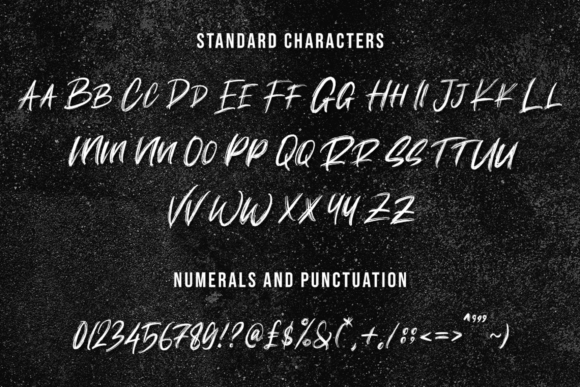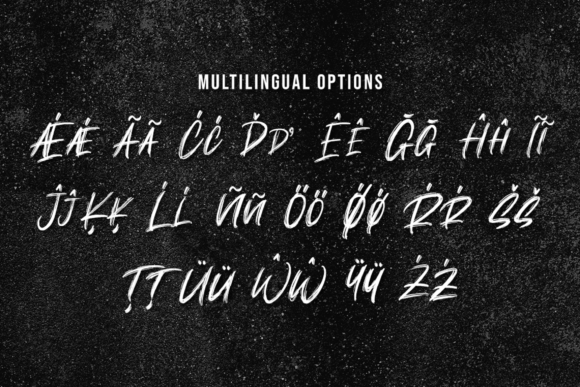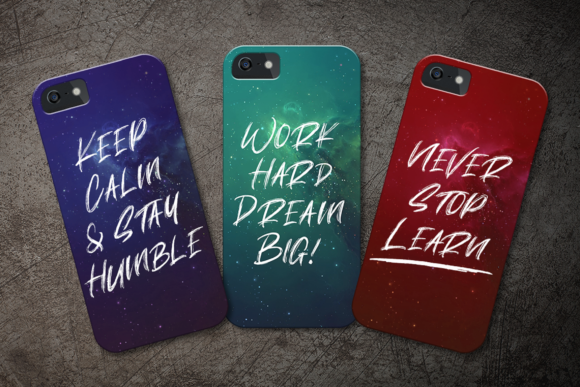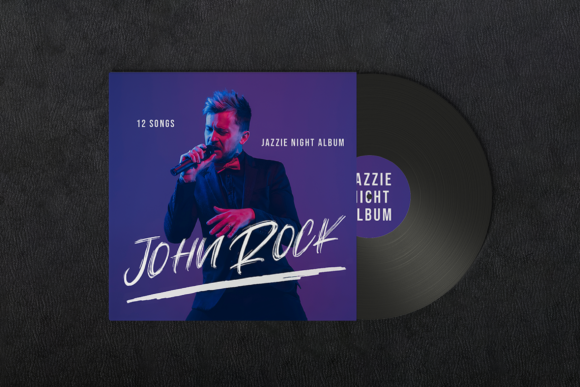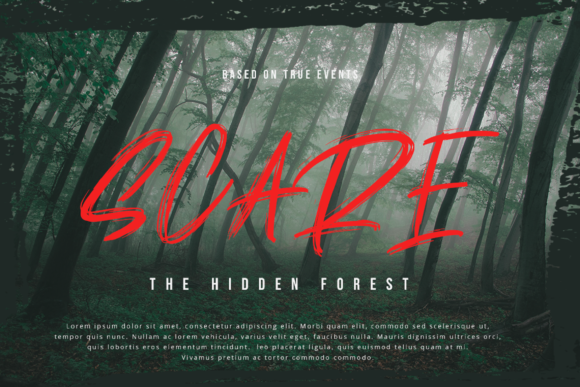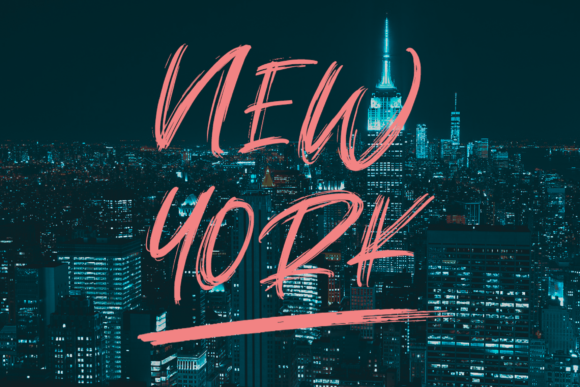
Introducing Burnout Font: The Ultimate Brush Script for Daring Designs
Are you tired of using the same old fonts in your designs? Look no further than Burnout Font, a daring script font made in a brush style that’s sure to take your creations to the next level. With its unique and edgy aesthetic, Burnout Font is the perfect choice for designers and crafters who want to make a statement.
The Perfect Font for Original and Outstanding Designs
Burnout Font is designed to help you create original and outstanding designs that stand out from the crowd. Its brush script style gives it a dynamic and expressive feel that’s perfect for a wide range of design applications, from logos and branding to invitations and packaging. Whether you’re a professional designer or a crafty DIY enthusiast, Burnout Font is the perfect tool for adding a touch of personality and flair to your work.
Key Features of Burnout Font
- Brush Script Style: Burnout Font features a unique brush script style that’s perfect for creating dynamic and expressive designs.
- Daring and Edgy Aesthetic: With its bold and daring aesthetic, Burnout Font is sure to make a statement in any design.
- Perfect for Creative Projects: Whether you’re working on a logo, invitation, or packaging design, Burnout Font is the perfect choice for adding a touch of personality and flair.
- Easily Customizable: Burnout Font is easy to customize, making it perfect for use in a wide range of design applications.
Why Choose Burnout Font?
So why choose Burnout Font over other fonts on the market? Here are just a few reasons why Burnout Font stands out:
- Unique and Original: Burnout Font is a truly unique and original font that’s sure to set your designs apart from the crowd.
- High-Quality Design: Burnout Font is designed to high standards, ensuring that it looks great in any design application.
- Easy to Use: Burnout Font is easy to use and customize, making it perfect for designers and crafters of all skill levels.
- Versatile: Burnout Font is versatile and can be used in a wide range of design applications, from logos and branding to invitations and packaging.
How to Use Burnout Font in Your Designs
Using Burnout Font in your designs is easy. Here are a few tips to get you started:
- Pair it with Other Fonts: Burnout Font pairs well with other fonts, so don’t be afraid to experiment with different combinations.
- Use it for Headlines and Titles: Burnout Font is perfect for use in headlines and titles, where its bold and daring aesthetic can really make an impact.
- Add a Personal Touch: Use Burnout Font to add a personal touch to your designs, whether you’re creating a logo, invitation, or packaging design.
| Font Name | Burnout Font |
| Author | Graphue |
In conclusion, Burnout Font is a daring script font made in a brush style that’s perfect for making original and outstanding designs. With its unique and edgy aesthetic, Burnout Font is sure to take your creations to the next level. Whether you’re a professional designer or a crafty DIY enthusiast, Burnout Font is the perfect tool for adding a touch of personality and flair to your work.